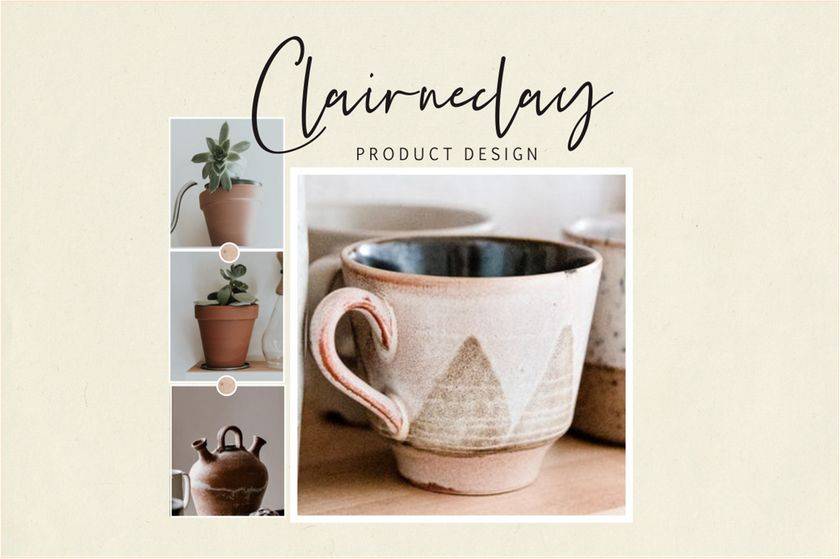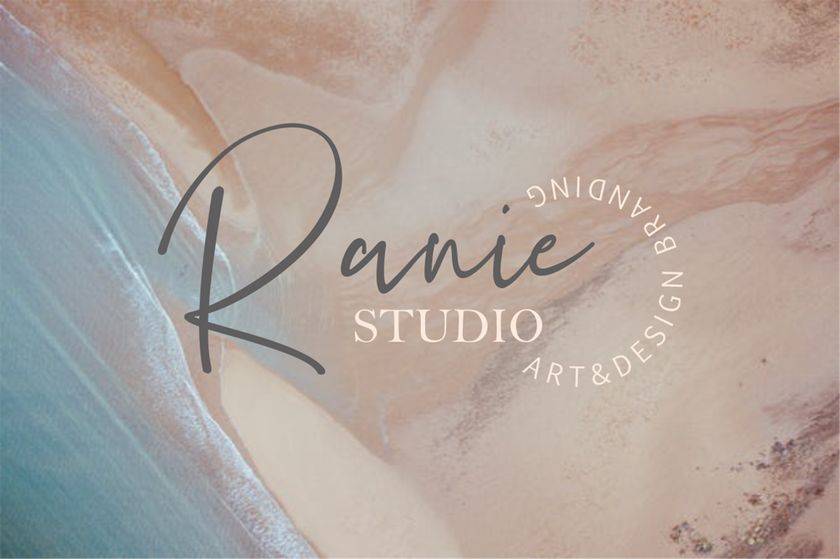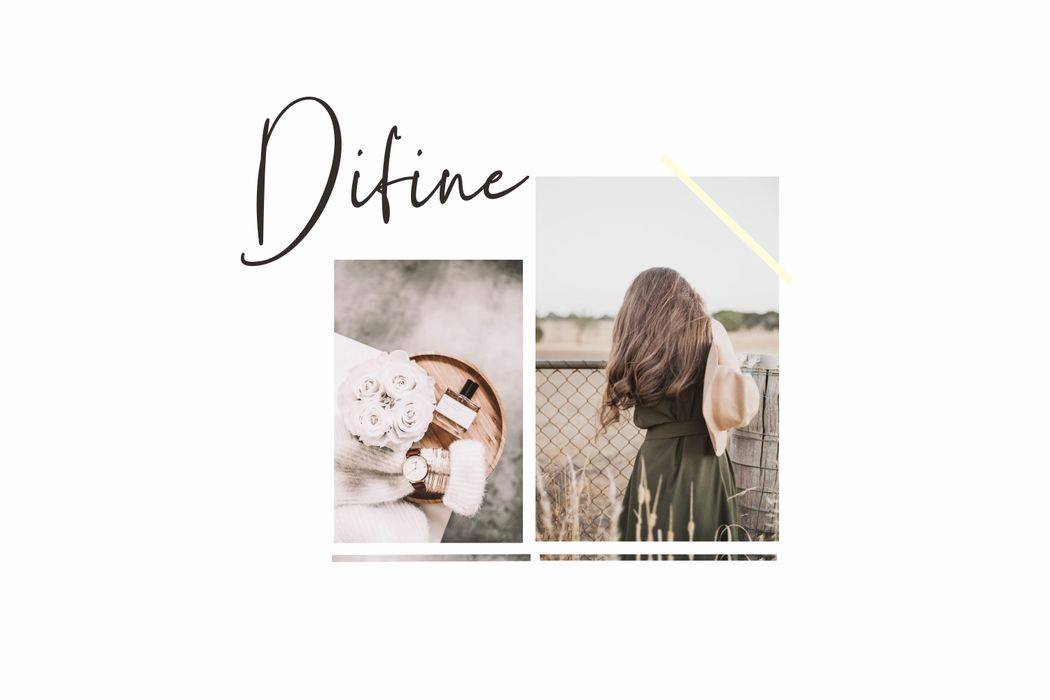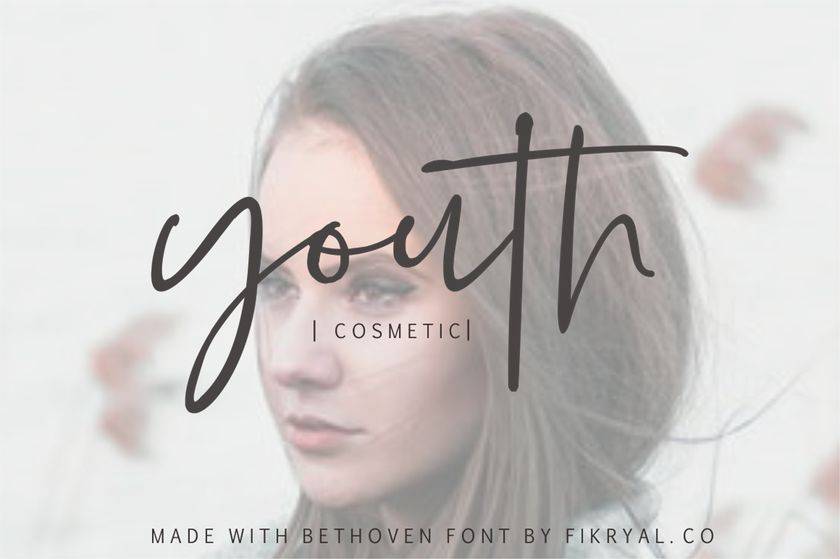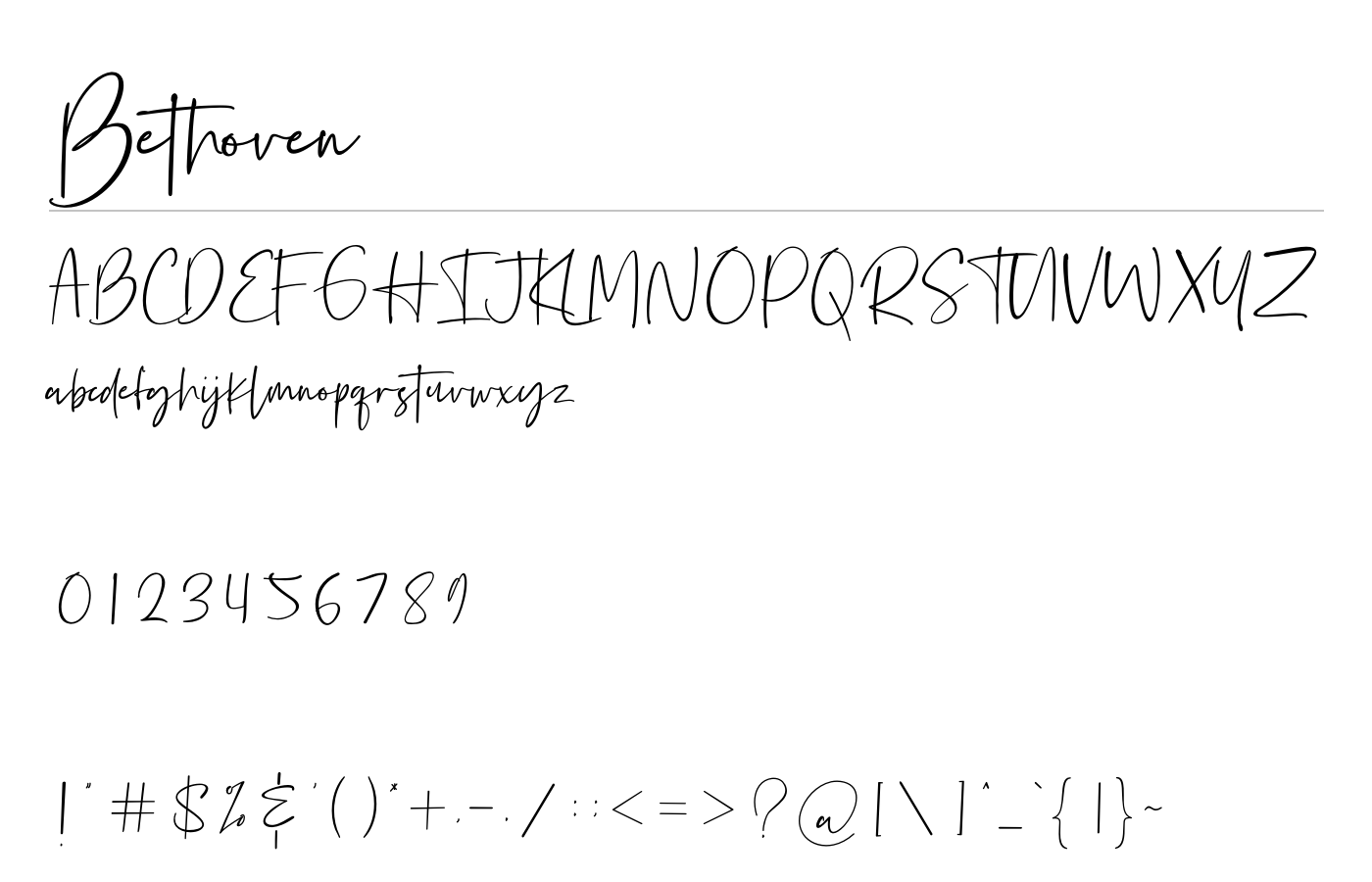
Bethoven is a light, airy handwritten script font with a casual and elegant feel, featuring tall, narrow letterforms and delicate, flowing strokes. Its thin lines and slightly uneven character shapes give it a personal, artistic touch, making it perfect for creative projects like invitations, branding, and stylish editorial work. This font brings a sense of warmth and individuality, ideal for designs that seek a modern yet approachable aesthetic.
Bethoven Font
About Bethoven Font